Constituent of Kanji and Creation Points 04: “Enclosed System”
The radicals of the enclosed system include “tare,” “nyou,” and “kamae.” Thickness is adjusted so that appearance of the enclosing side is stronger, and the enclosed part is weaker. Regarding thickness, the enclosed part is created at one stage thinner, and the tones of the entire character are leveled, while avoiding congestion. The thicker the weight, the more tendency there is for significant differences at this one stage. There is a previously introduced principle: “make the vertical stroke thicker the further it goes to the right, and make the horizontal stroke thicker the further it goes to the bottom.” For the enclosed system, adjustment is made by differentiating the enclosing side and the enclosed side, respectively.
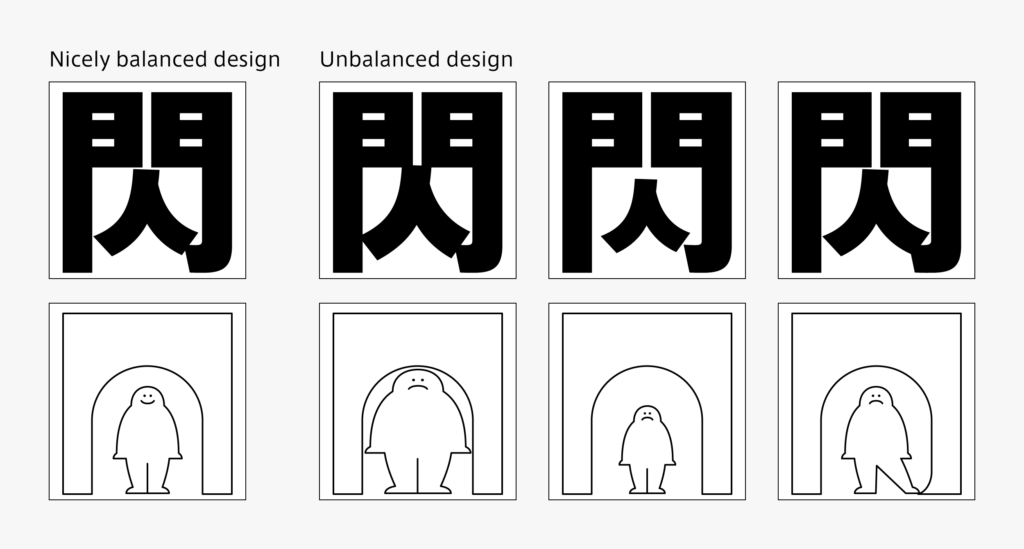
Adjustment is made while matching the shape of each element in the same way as the other groups. For example, where the hook of “門” and the right sweep of “人” are about to collide in “閃,” adjustment is made by shortening either or both parts.